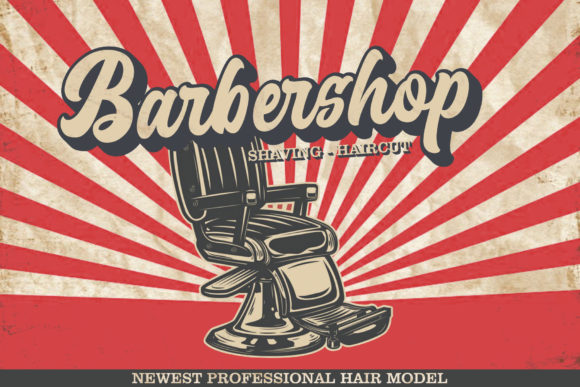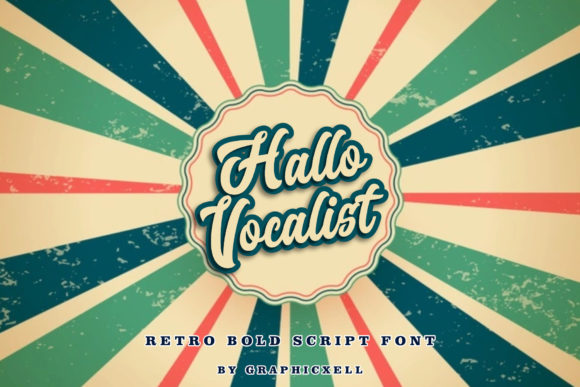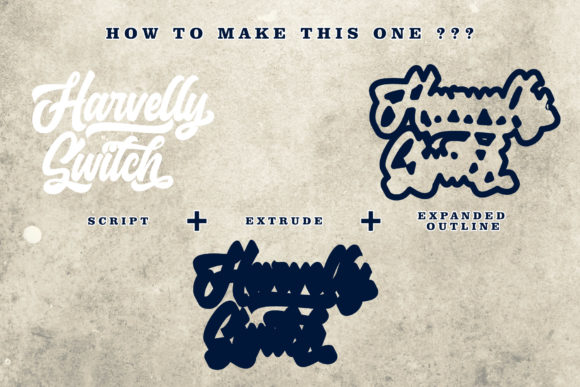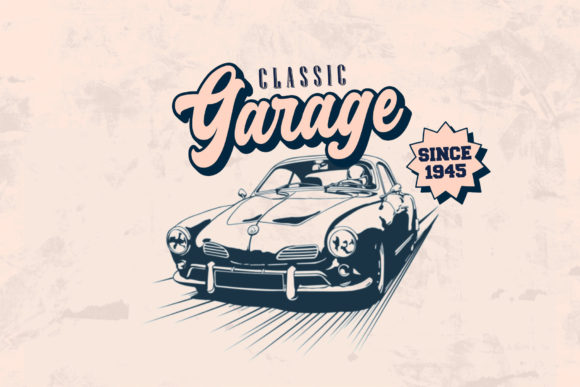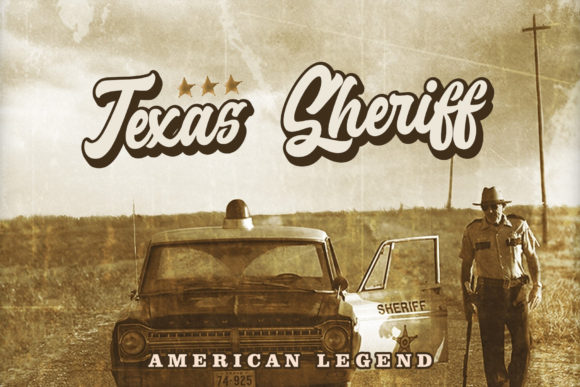
Haverlly Switch Font
About Haverlly Switch Font
Haverlly Switch is a modern handwritten font that was inspired by vintage and retro styles. This powerful combination allows you to create hand lettering that is perfect for logos, handwritten quotes, product packaging, merchandise, and more!